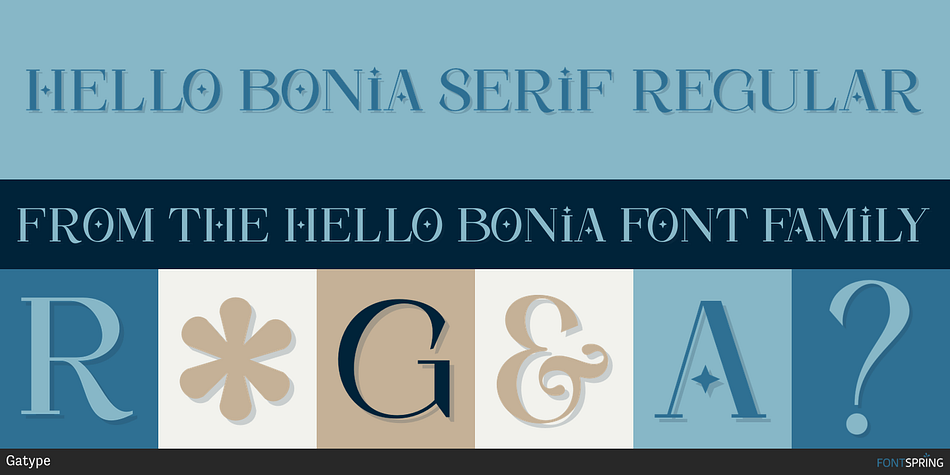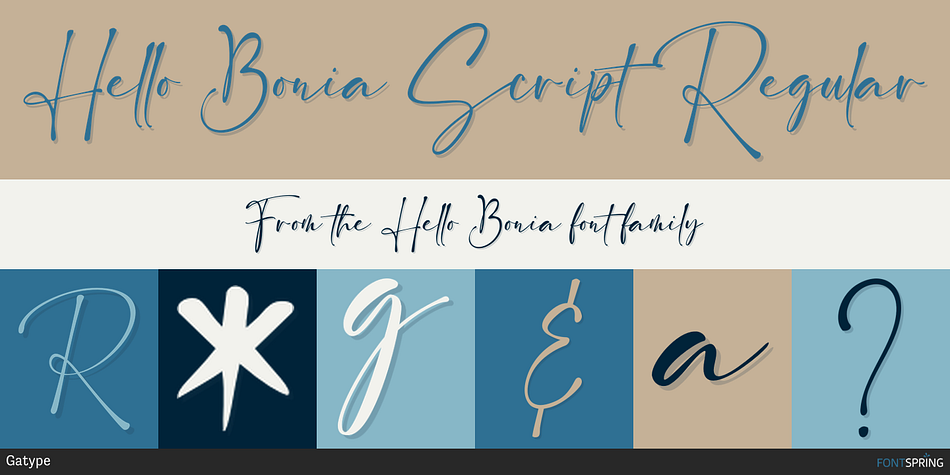
Hello Bonia
Hello Bonia is a display serif and modern calligraphy font family. This typeface has two styles and was published by Gatype.
Hello Bonia is a modern vintage serif font that is packaged in a modern and classy style, complete with your OpenType feature access to access a large selection of alternative fonts and bindings, the choice of fonts you like from large and small font variations to luxurious and elegant looks. This font is perfect for branding projects, Logo design, Apparel Branding, packaging, magazine titles, advertisements, T-shirts, postcards and more.
Styles Display Serif, Modern Calligraphy